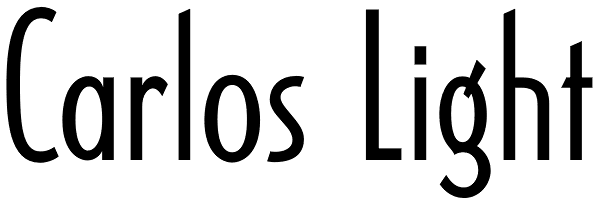
Carlos
Carlos was inspired by a Spanish typeface designed by Carlos Winkow called 'Elektra' (c. 1940), available elsewhere as Casablanca. Carlos is an exceptionally graceful, condensed art deco sans serif design that supports all European languages that...